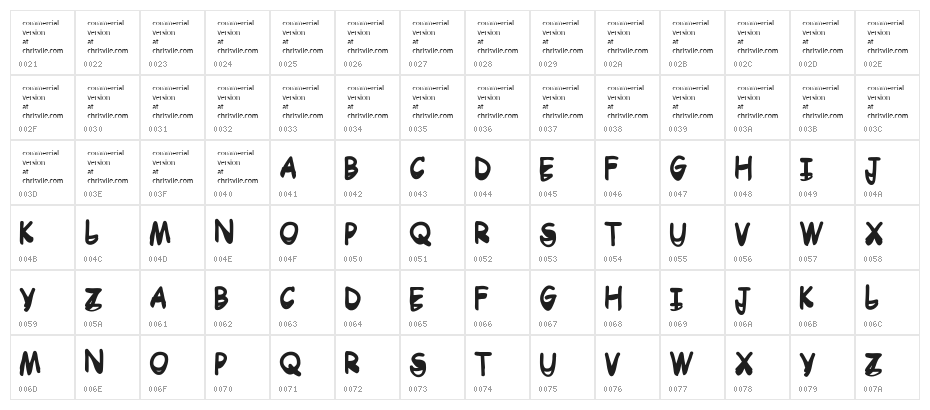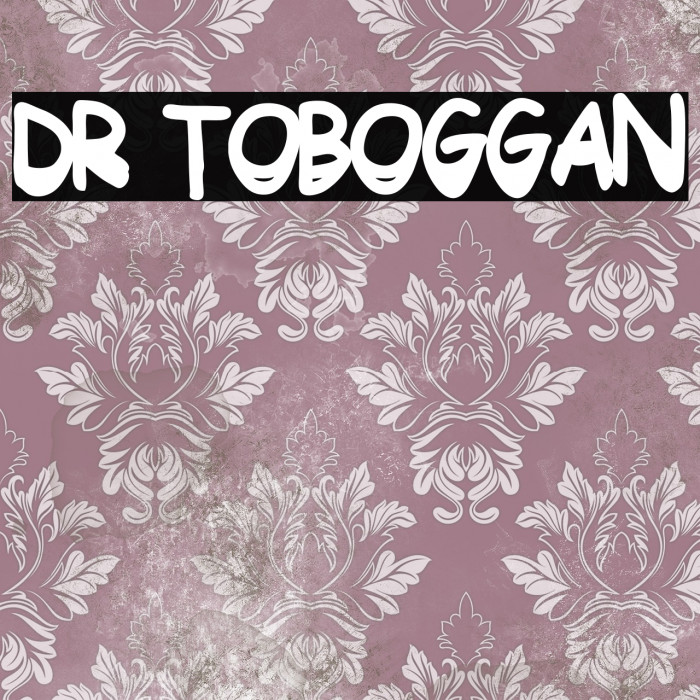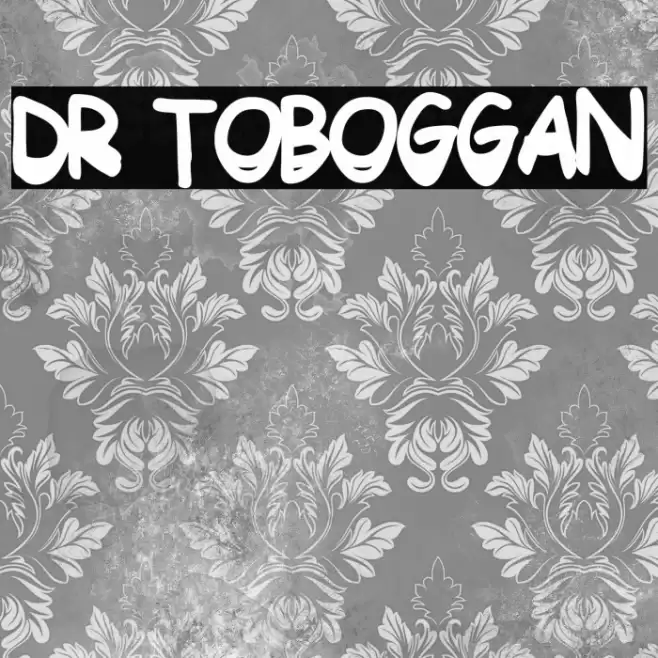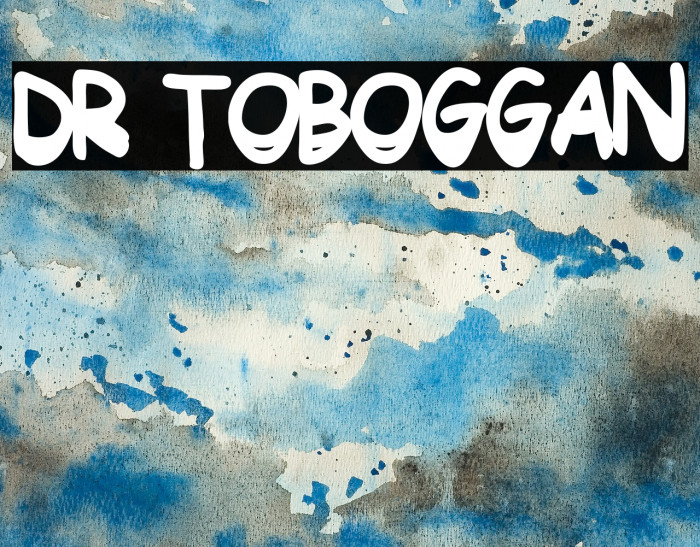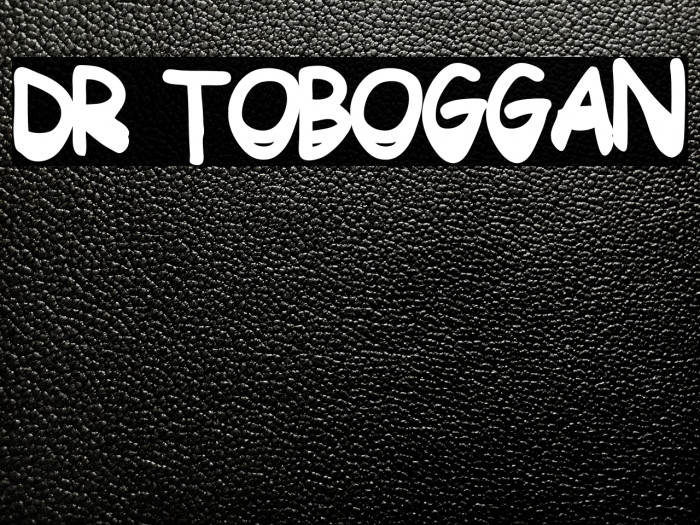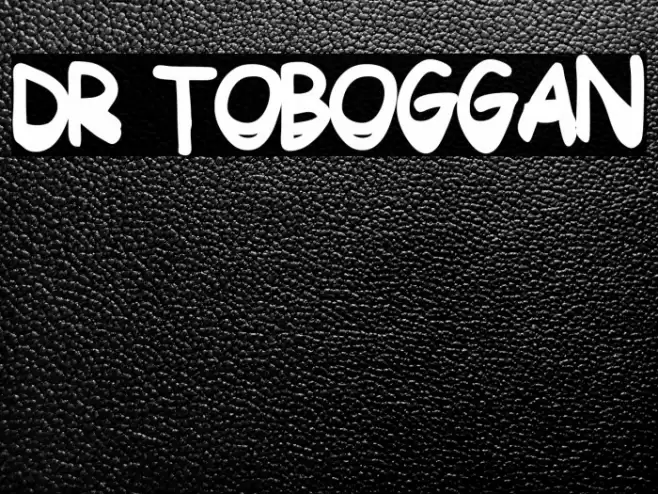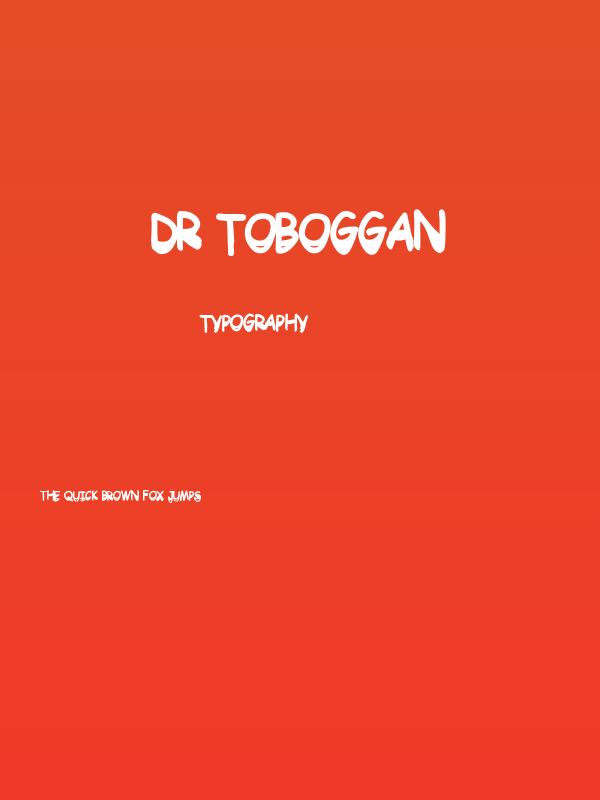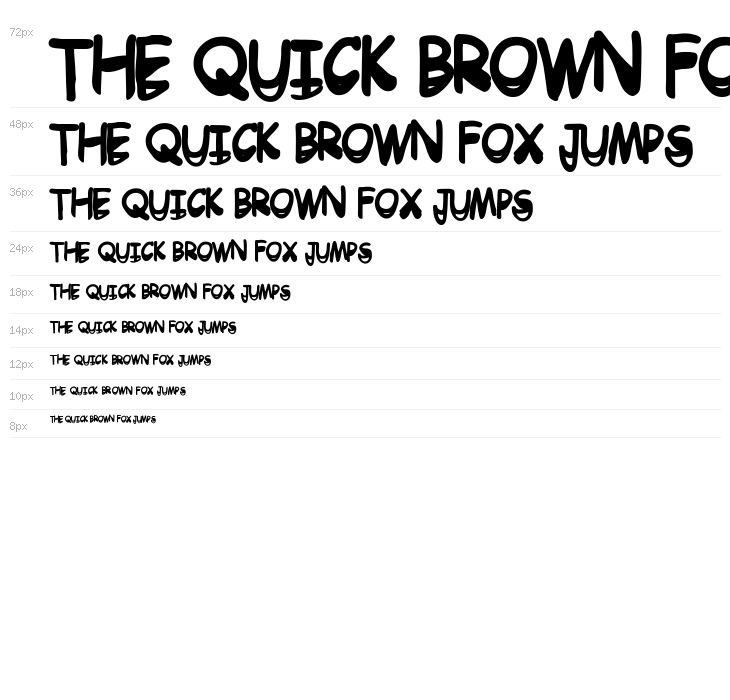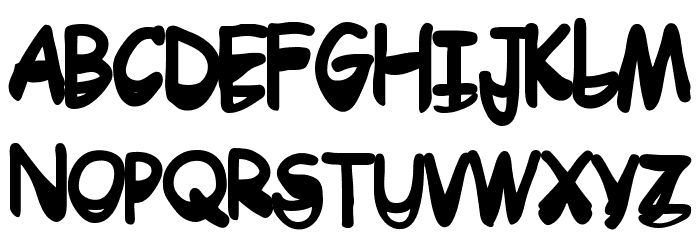
Dr Toboggan Font
Dr Toboggan Description
This font features a bold and playful design with a handwritten style. The characters are rounded and have a slightly irregular shape, giving them a casual and friendly appearance. The strokes are thick and consistent, contributing to a strong visual impact. The uppercase and lowercase letters maintain a cohesive look, while the numbers and special characters blend seamlessly with the overall style. This font exudes a sense of fun and creativity, making it suitable for projects that aim to convey a lively and informal tone.
| Proposed Projects | Ideal for children's books, playful branding, event posters, and creative social media graphics. |